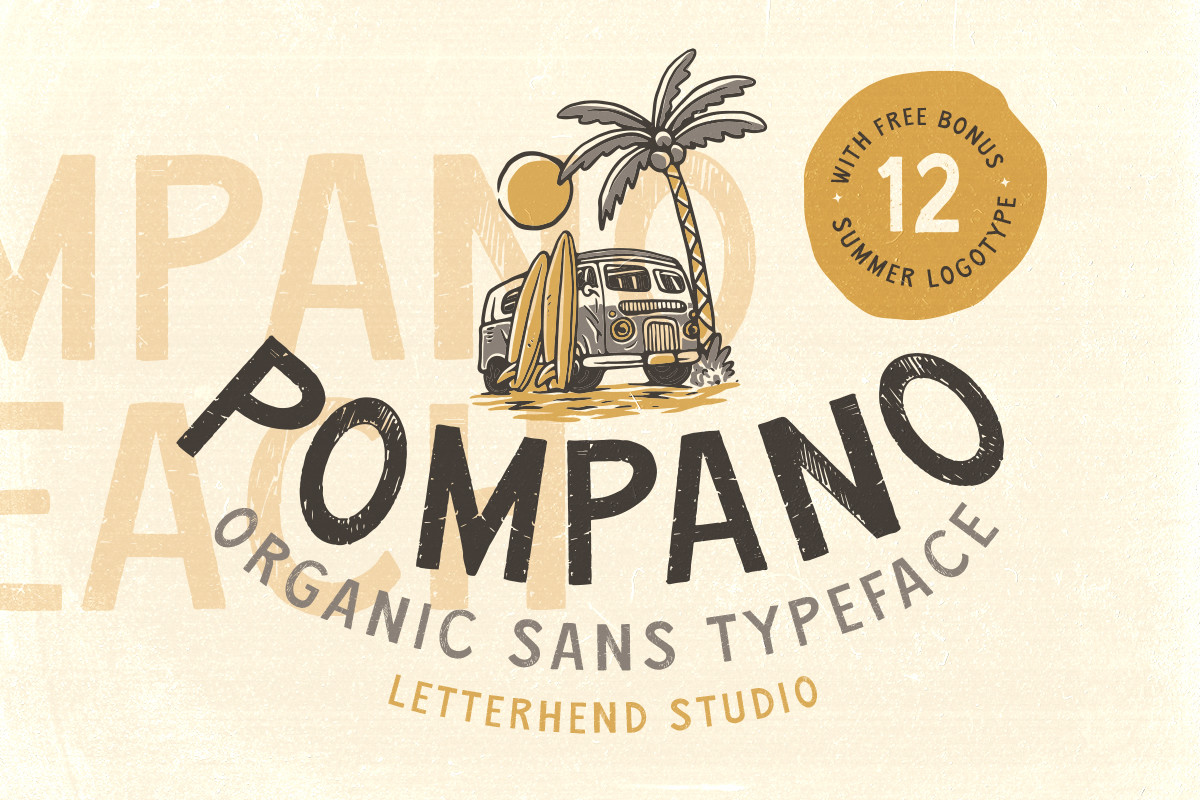
Pompano Font
Pompano Font is perfect for coastal resort branding, beachside restaurant menus, tropical vacation packages, marine conservation campaigns, seafood market signage, nautical themed events, waterfront property marketing, summer festival posters, beach club materials, and ocean-inspired product packaging. This versatile typeface works beautifully for surf shop branding, sailing club communications, aquarium exhibitions, coastal wedding invitations, marine biology educational materials, lighthouse museum displays, and seaside boutique hotels.
What makes Pompano Font so exciting is its natural ability to evoke the refreshing spirit of coastal living and maritime adventures. The font captures the essence of ocean waves and sea breezes through flowing letterforms that mirror the organic movement of water. Each character reflects the relaxed yet dynamic nature of coastal environments, creating an immediate sense of vacation, freedom, and natural beauty. The design balances playful coastal charm with professional readability, making it perfect for brands seeking to communicate authenticity, relaxation, and connection to marine environments while maintaining commercial appeal.
The Pompano Font family includes multiple weights and stylistic variations that enhance its coastal versatility. The collection features light, regular, and bold weights, each maintaining the font's oceanic character while providing flexibility for different design hierarchies. Additional elements include wave-inspired decorative flourishes, nautical symbols, and maritime icons that complement the typography. Extended character sets support multiple languages for international coastal destinations, while specially designed ligatures create natural text flow reminiscent of gentle ocean currents.
Whether you're designing for hospitality industries or creating marine-themed marketing materials, Pompano Font Free Download provides the perfect solution for projects requiring authentic coastal appeal. This remarkable typeface transforms ordinary text into refreshing visual experiences that transport audiences to pristine beaches and crystal-clear waters. The font's oceanic personality and natural flow make it ideal for brands that celebrate marine life, coastal living, and seaside adventures, ensuring your designs capture the timeless allure of the ocean while maintaining excellent readability and professional presentation standards.